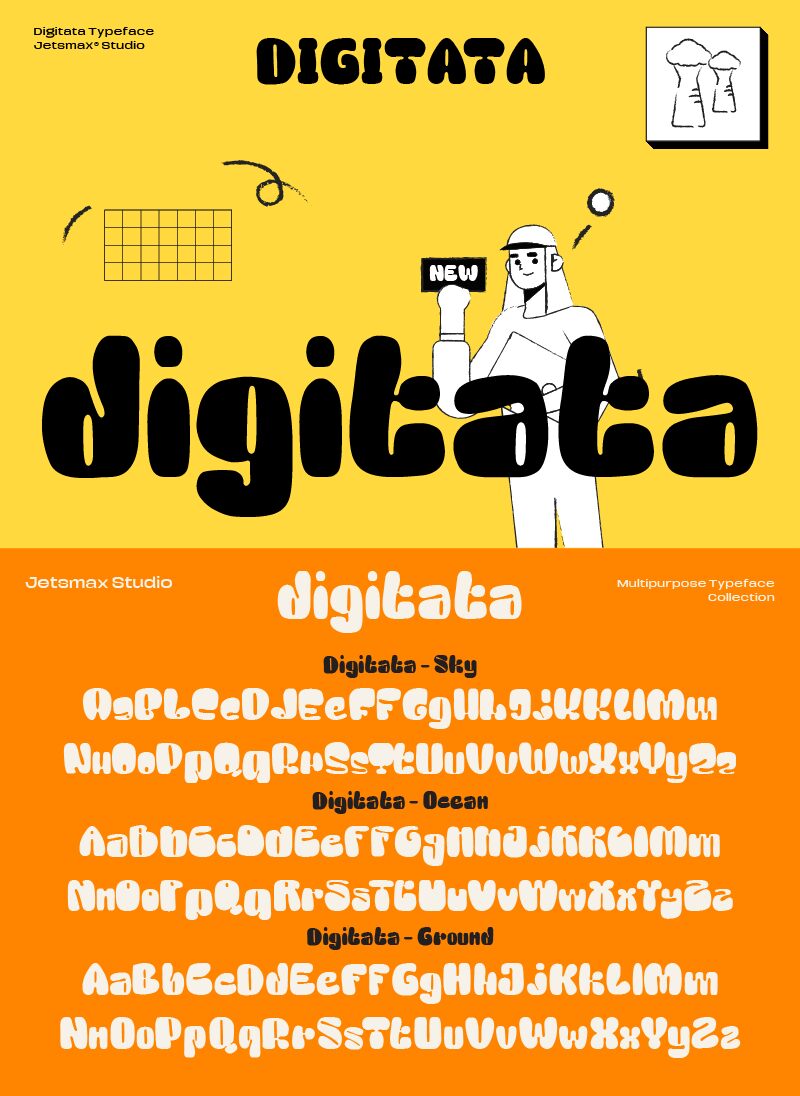
Digitata font family by Jetsmax Studio contains 3 bubbly, rounded typefaces that guarantee to add a lighthearted and fun feeling to your design projects. This free font family is easygoing and informal in style, all the while displaying a bold and impactful appearance. It is the rounded version of its original design and by slightly polishing the edges with small rounded corners, it creates a more modern-looking typeface ideal for use in current design styles and trends.
Designed for use across branding and identity design, advertising, poster design, and designed for optical sizes used in digital design; this beautiful typeface finds its muse in retro typography. It fits side by side with logos, signage, and product design, while magazines, reports, and packaging design can also be brought to life with this gem.
Beyond print, where Digitata was initially created to operate best, you can finally use a good form of this typography across the web.